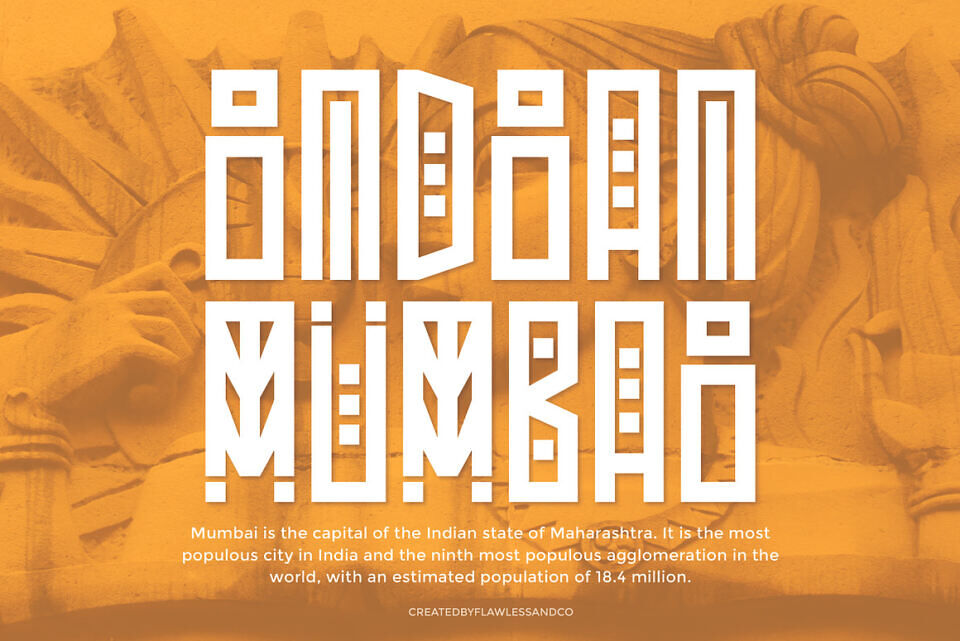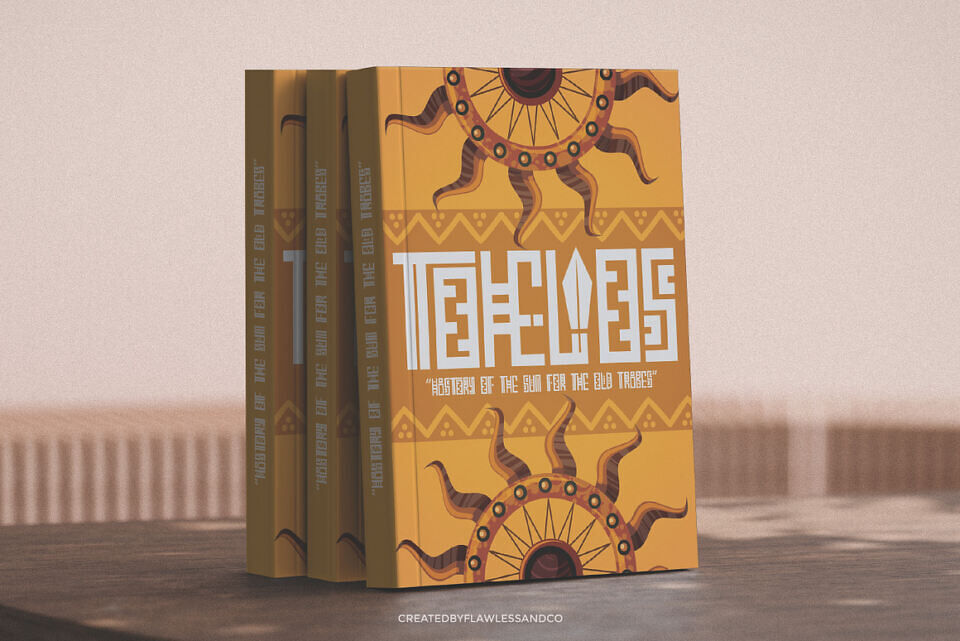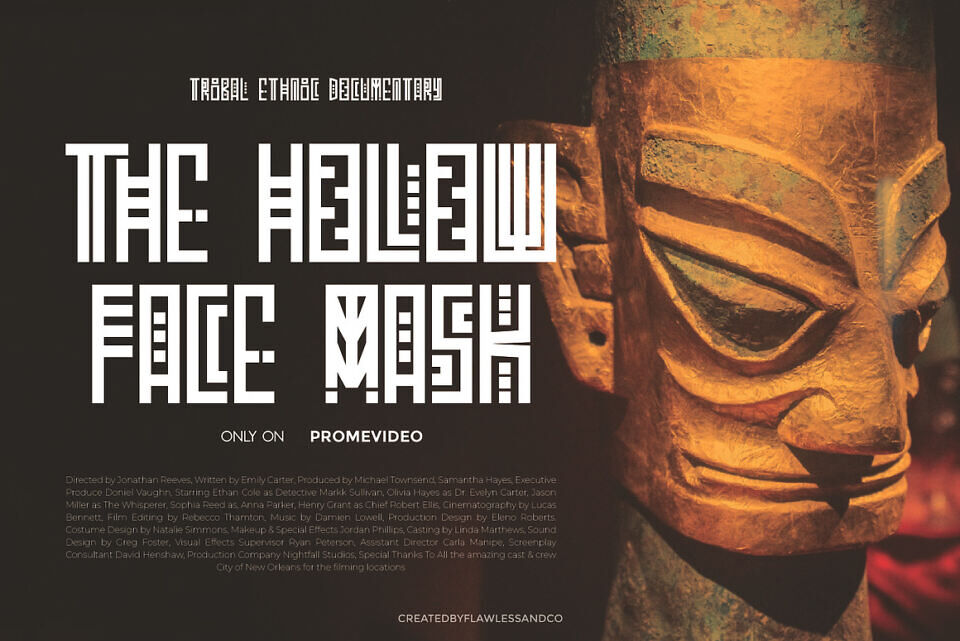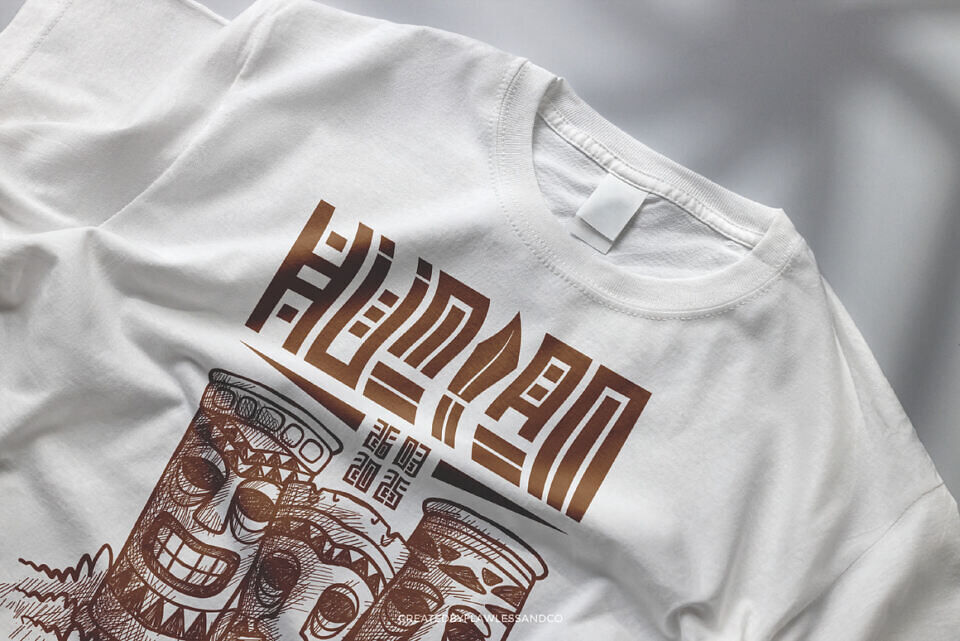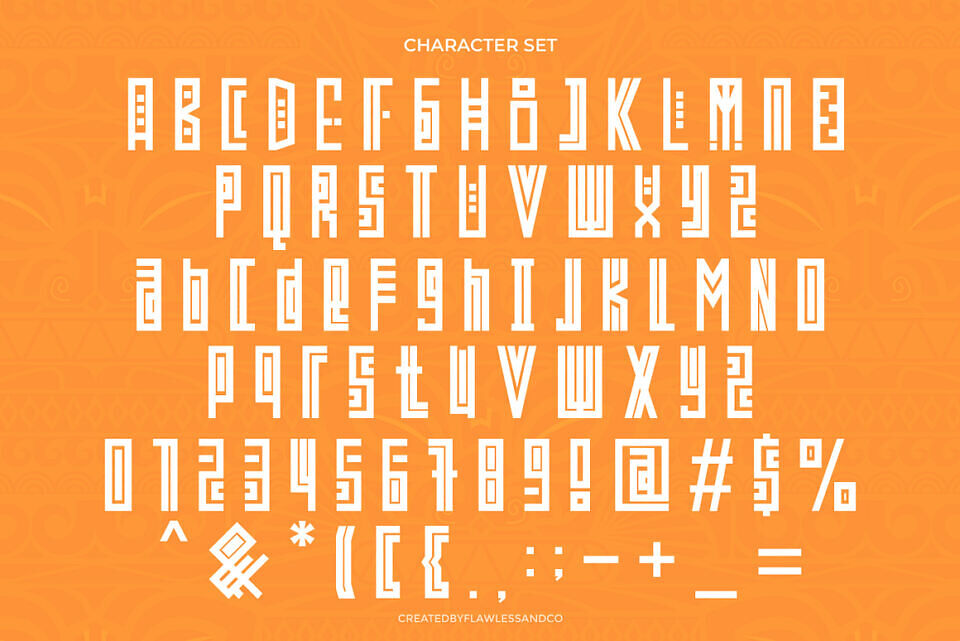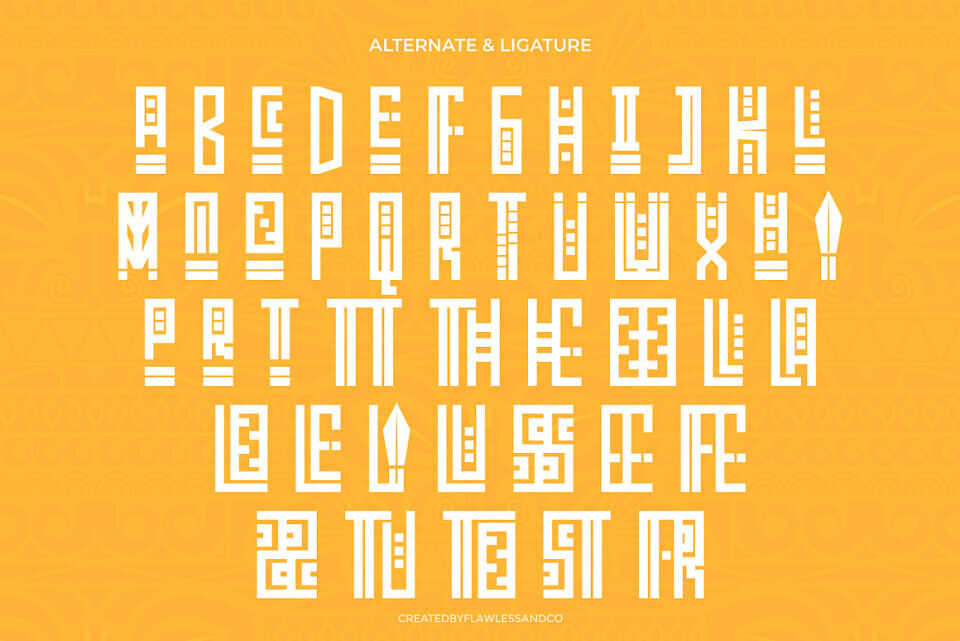
SHAMANS is an expressive tribal typeface that marries ancient cultural motifs with a modern aesthetic. Drawing its inspiration from traditional indigenous symbols and ritualistic ornamentations, SHAMANS boasts high-impact letterforms imbued with a sense of mystical heritage and contemporary flair.
Perfect for design projects that demand a bold and memorable presence — from festival posters and cultural branding to album covers and bespoke art pieces — this typeface delivers both drama and authenticity. Each character in SHAMANS is meticulously crafted, balancing raw, primitive energy with refined artistic detailing.
The font includes distinctive alternates and unique ligatures, providing creative flexibility to enrich your compositions with a variety of expressive styles and dynamic visual rhythms.